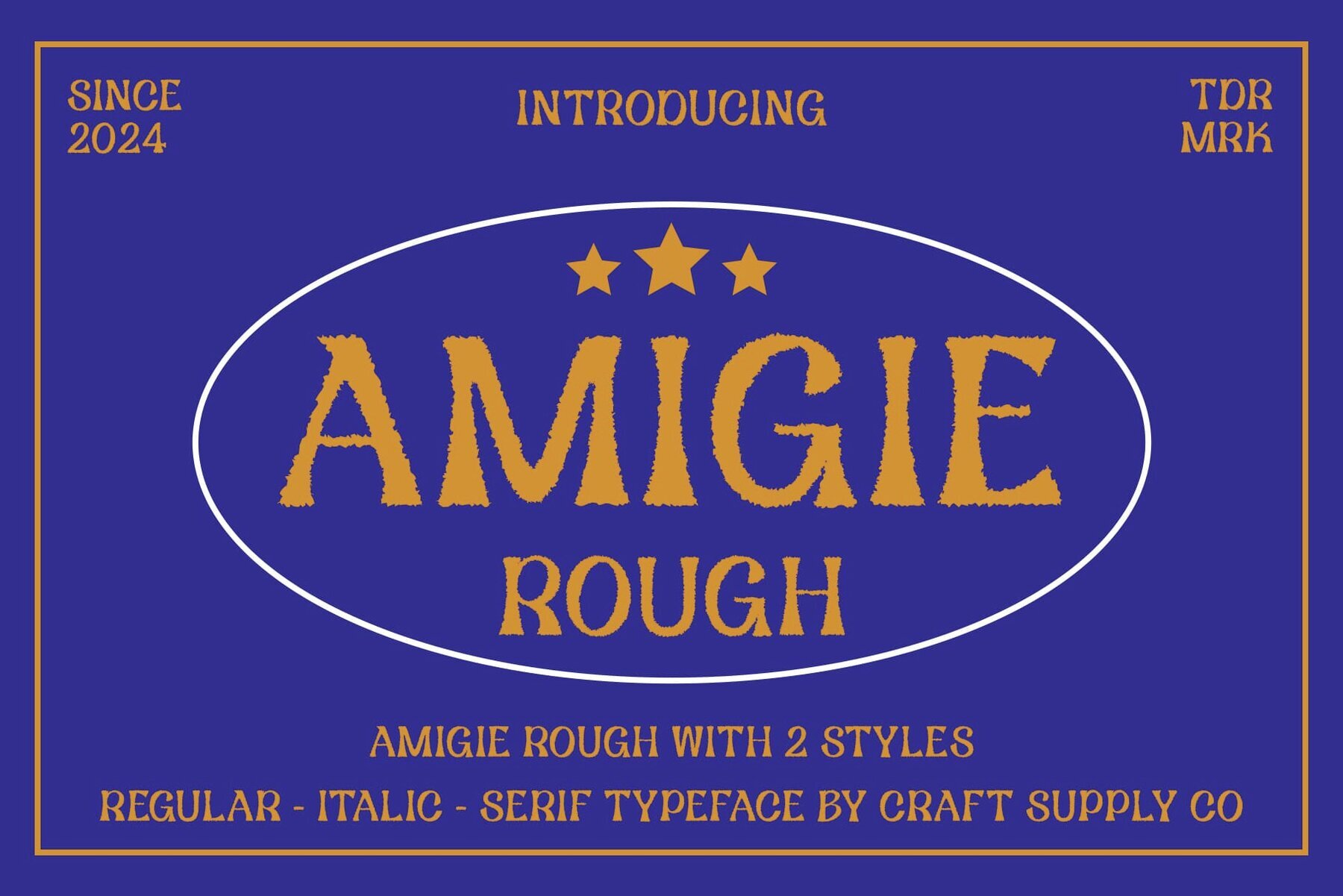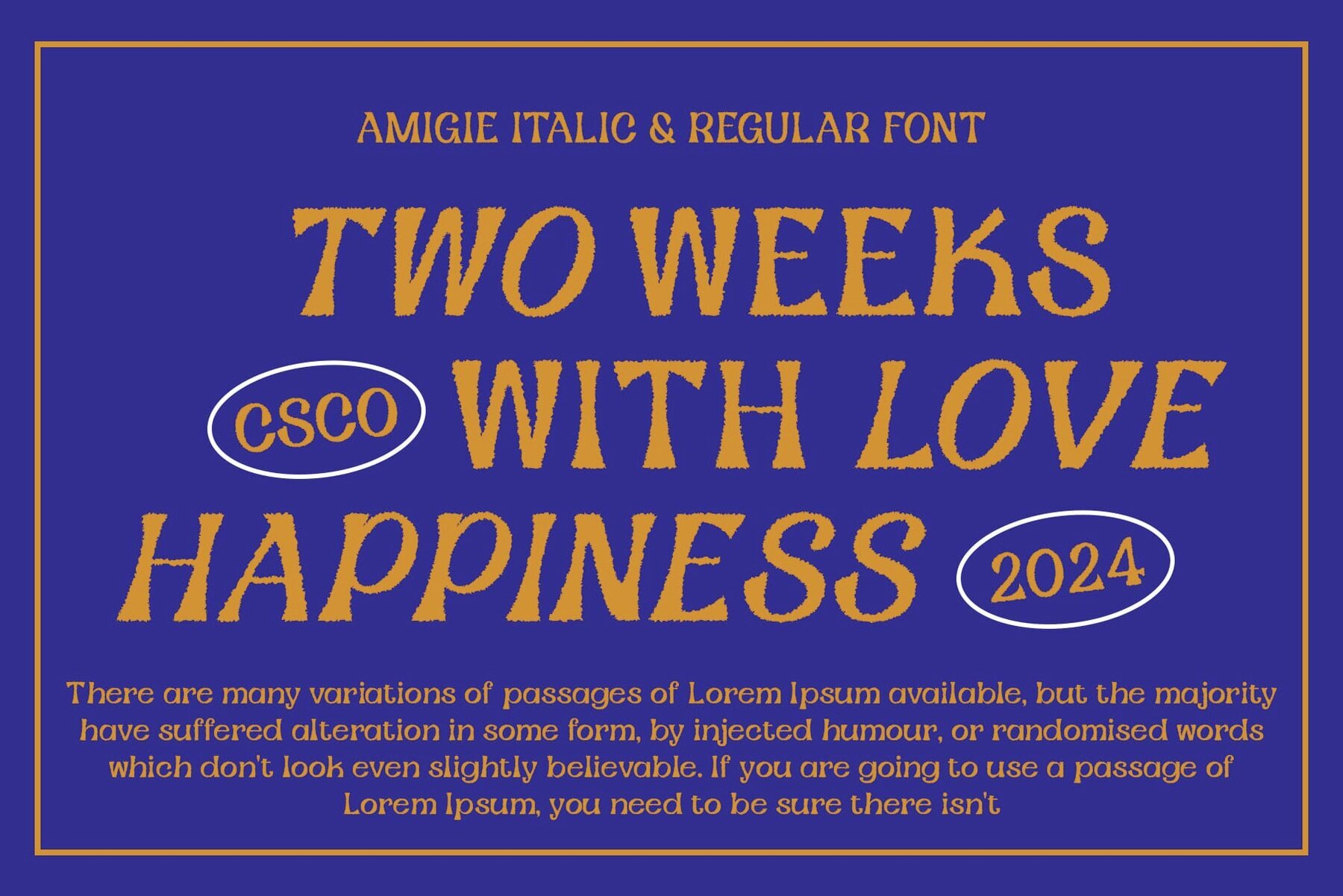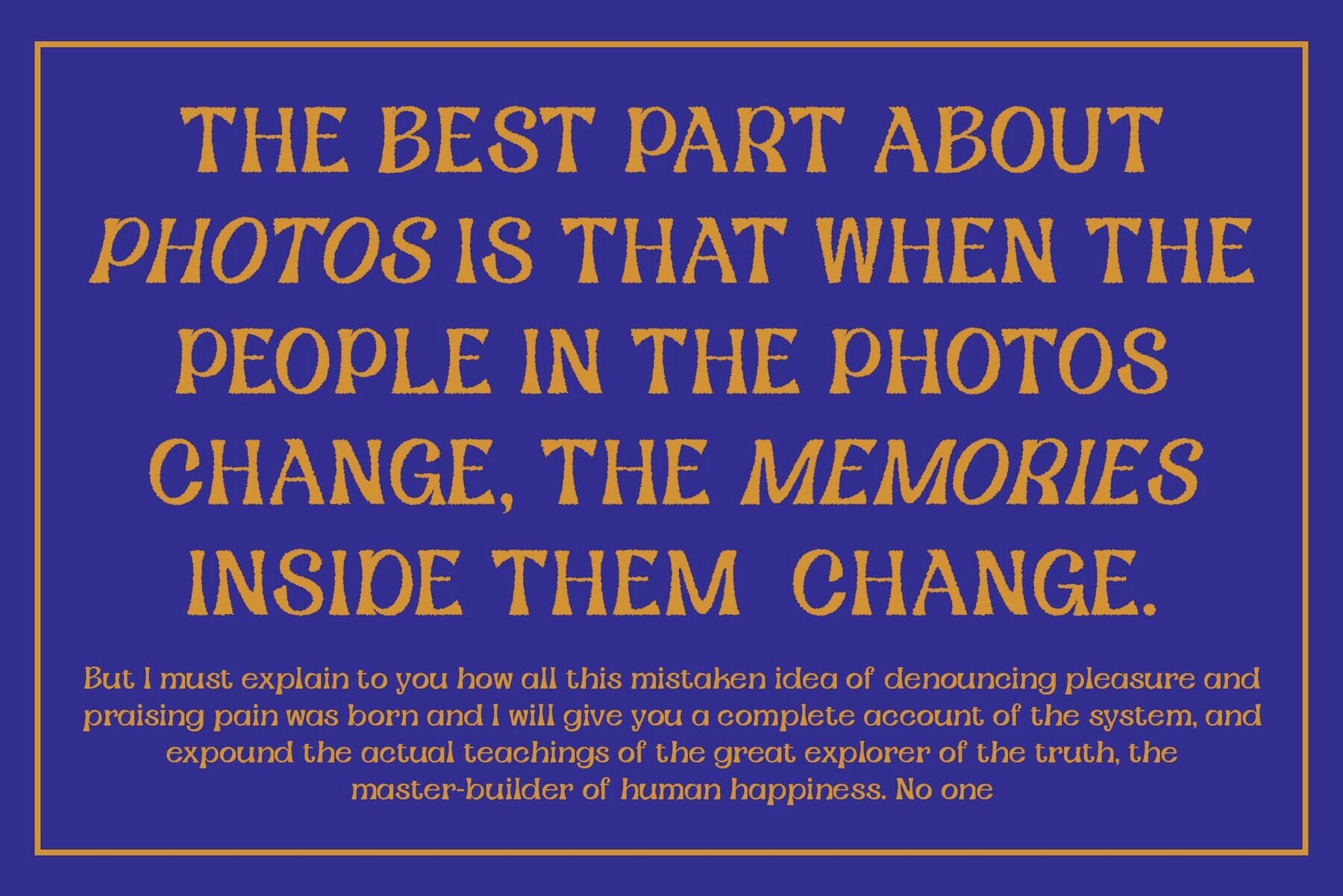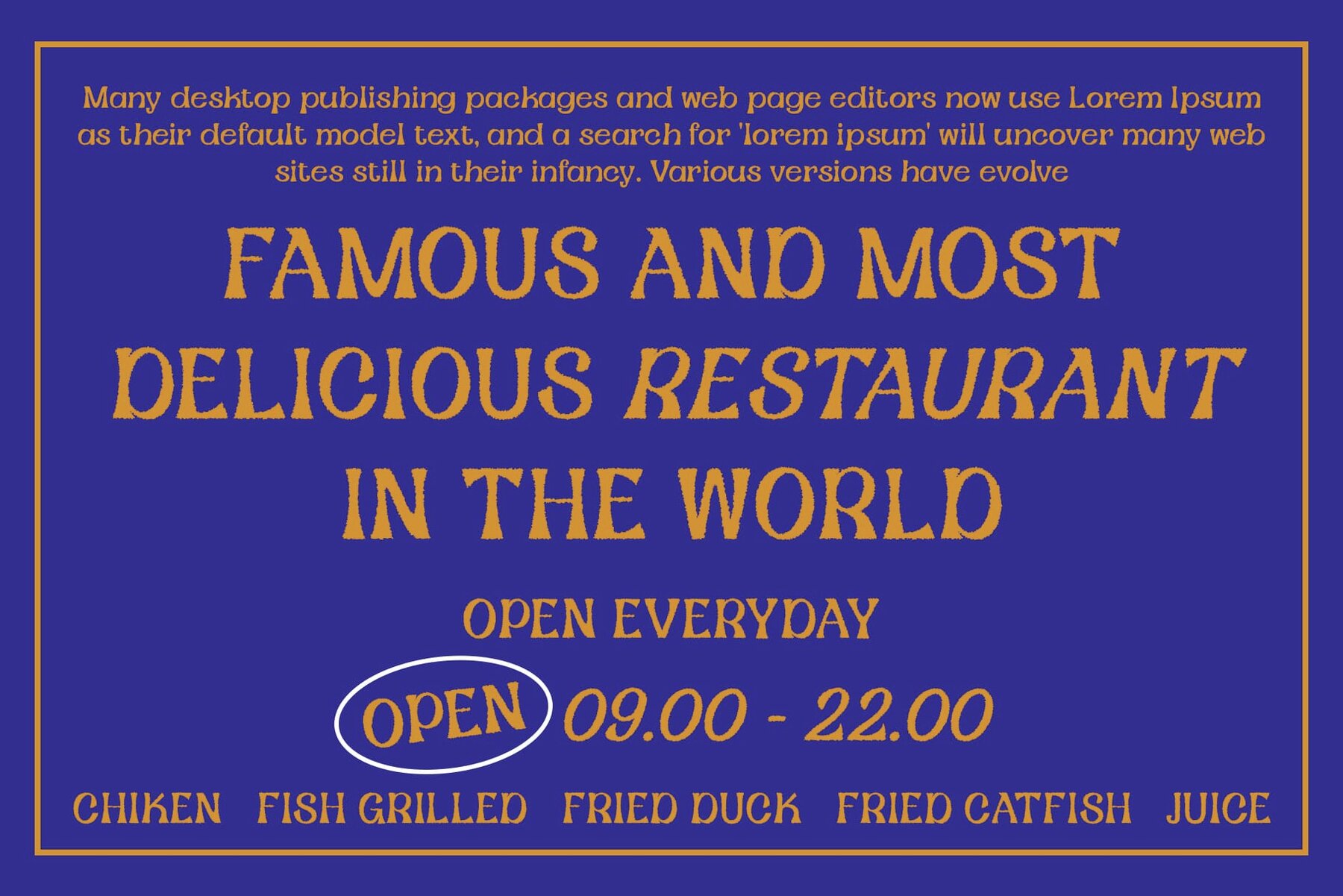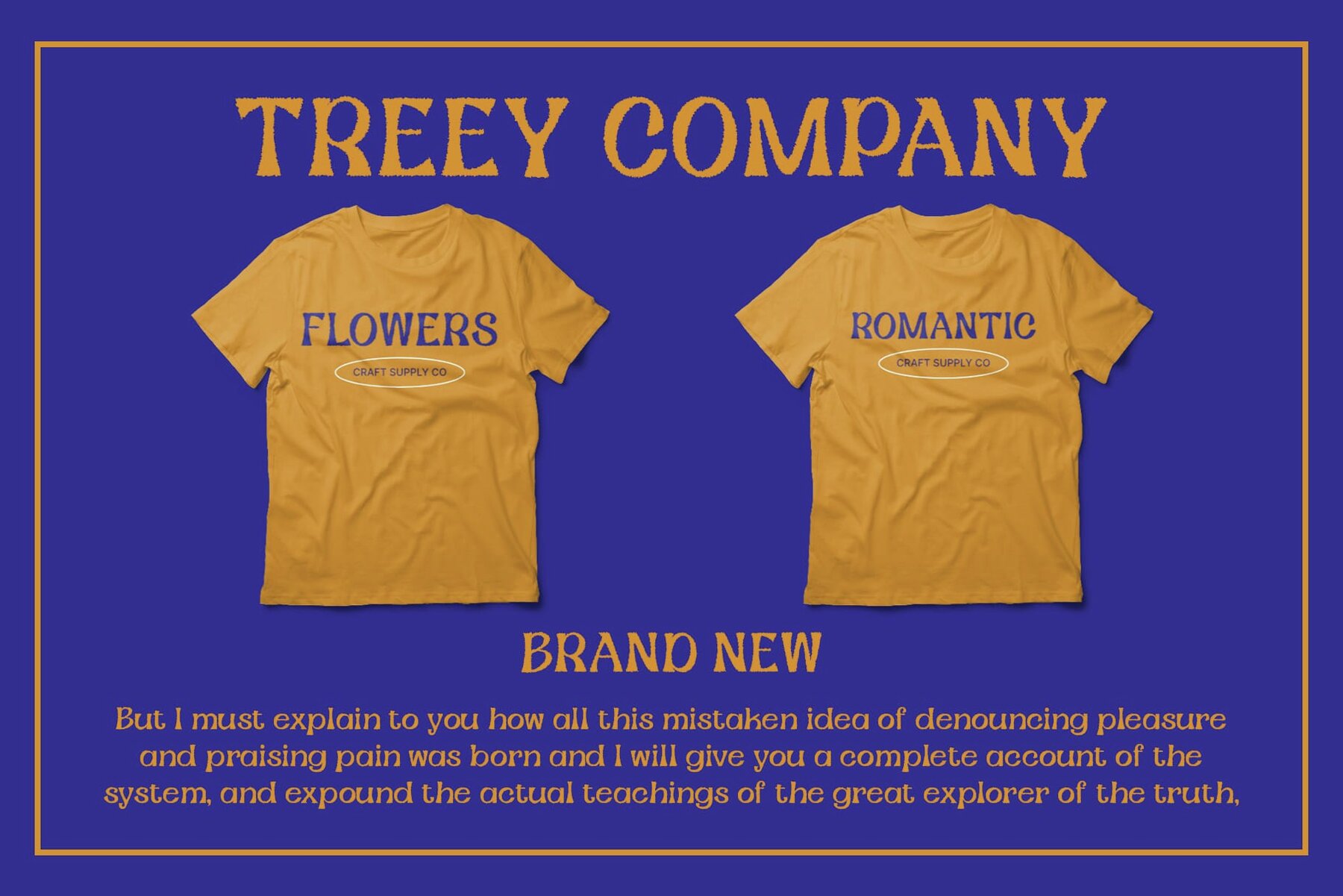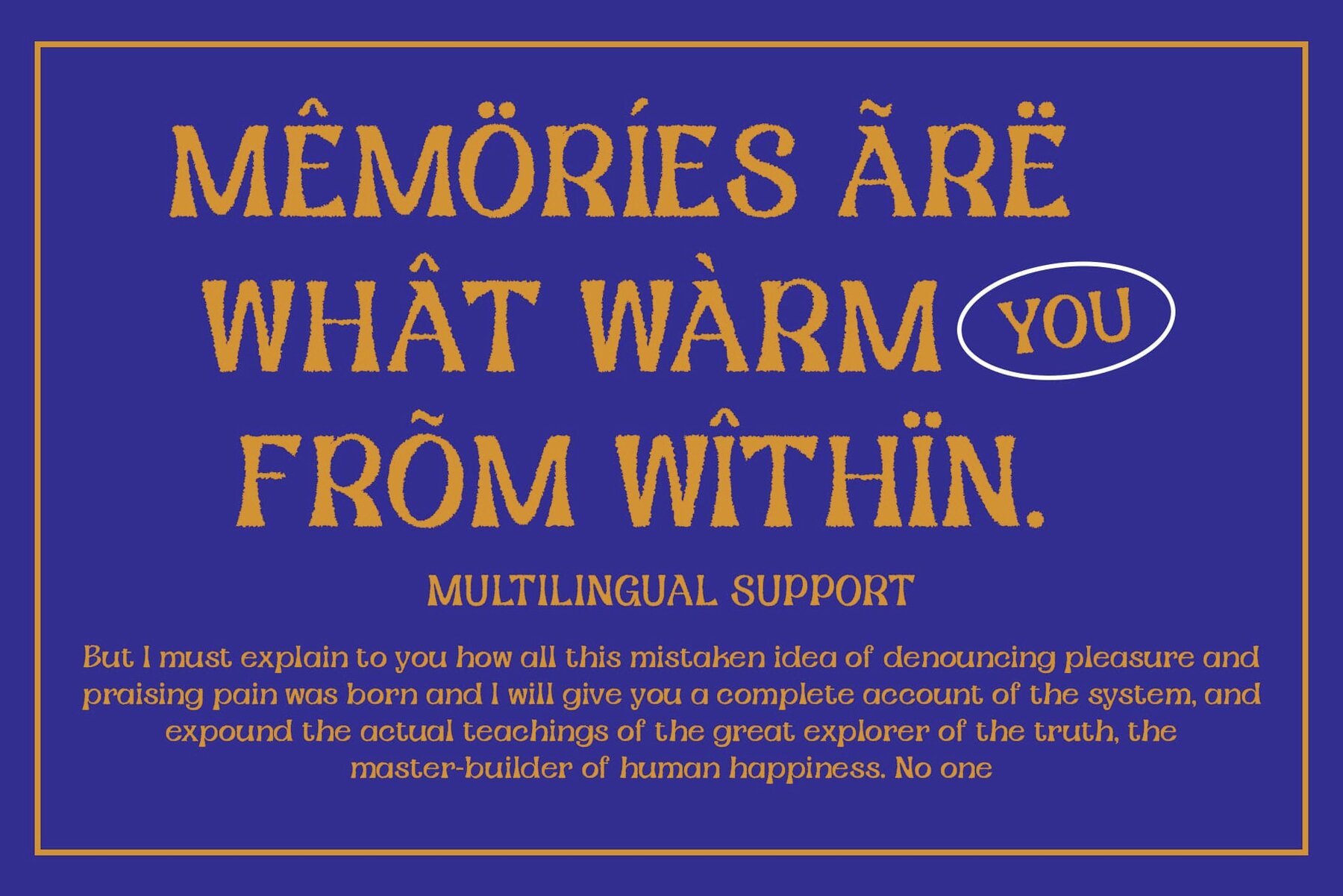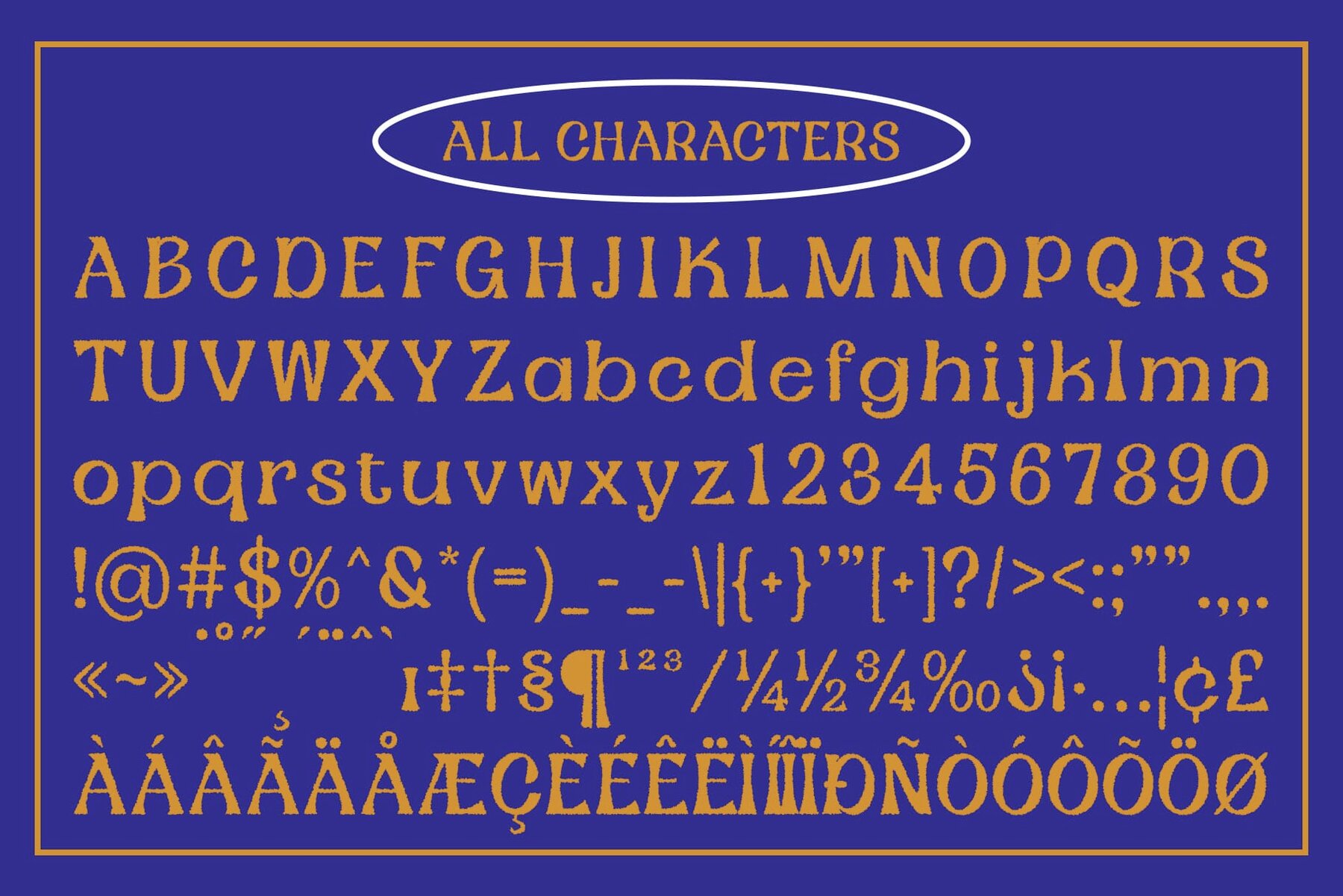
Amigie Rough Font
Amigie Rough brings a distinct, funky vibe to your design projects with its display format inspired by music. This font features unconventional shapes and lively strokes, embodying creativity and energy. Drawing inspiration from various musical genres, each character reverberates with the dynamic and expressive essence of music, making it perfect for musically themed projects.
Enhanced with a rough effect, Amigie Rough offers a vintage charm that adds character and depth to your designs. The textured appearance evokes the nostalgia of old vinyl records and classic concert posters, making it ideal for vintage-inspired displays like posters, album covers, or branding materials. With uppercase and lowercase characters, numerals, punctuation, and support for multilingual characters, this versatile font is a standout choice for projects aiming to capture the spirit of music and a touch of retro flair.